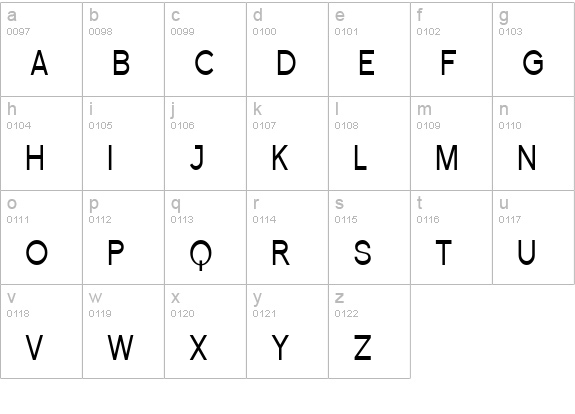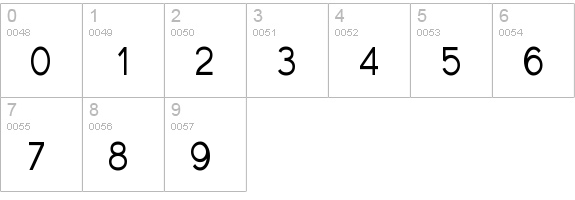
Florencesans SC Cond is a distinctive, condensed-width variant in the Florencesans typeface family \xE2\x80\x94 well suited to design and typography projects.
Florencesans SC Cond is a modern and elegant sans-serif font that exudes sophistication and style. With its condensed form, this font is perfect for creating sleek and contemporary designs that demand attention. Its clean lines and balanced proportions make it versatile for a wide range of projects, from branding to editorial design. What sets Florencesans SC Cond apart is not only its aesthetic appeal but also the fact that it is available for free download at FontsMarket.com. This means that designers and creatives can easily access and use this stunning font in their projects without any cost involved. Whether you're working on a personal project or a client's campaign, Florencesans SC Cond is a valuable addition to your font library. Download Florencesans SC Cond for free today at FontsMarket.com and elevate your designs with this exquisite typeface.